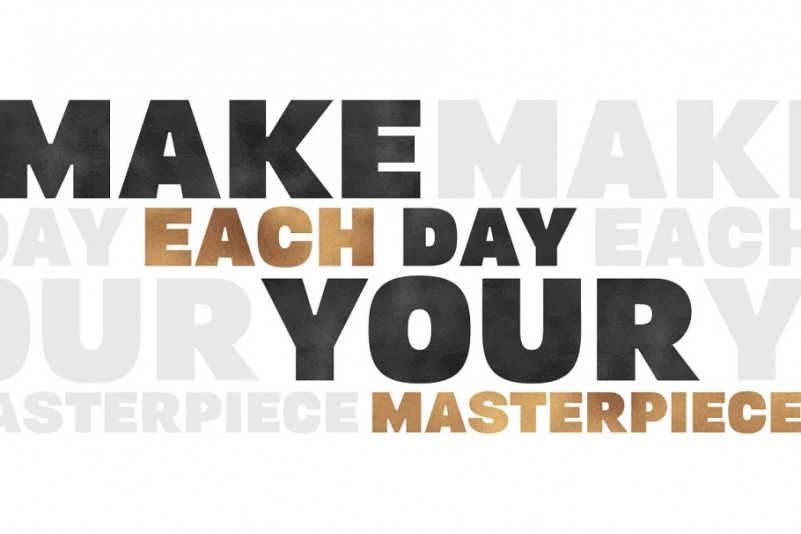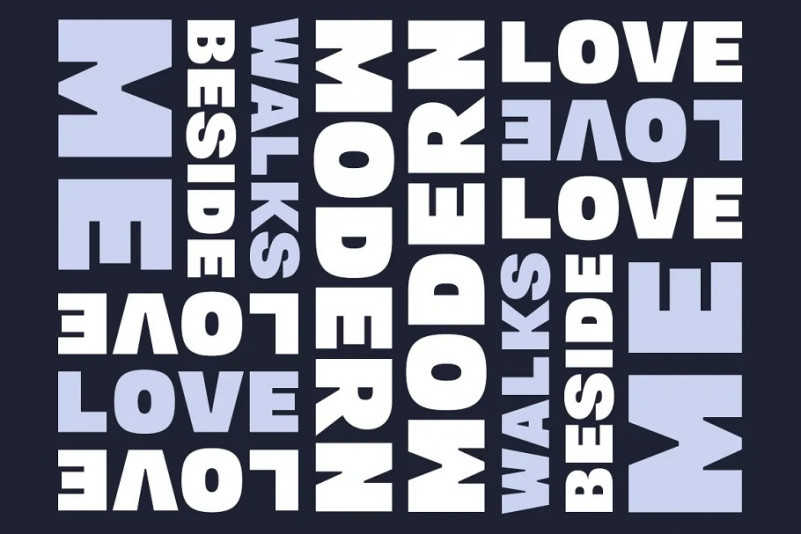
Shadow Boxing Font
Introducing Shadow-Boxing Font Duo! A cool combination between super heavy sans serif and carefree brush script. Whenever you need strong impression for your design, Shadow-Boxing is there for you.. It’s nice to have a trustworthy resource as an option, isn’t it? Give it a try, mix it up, and be awesome!